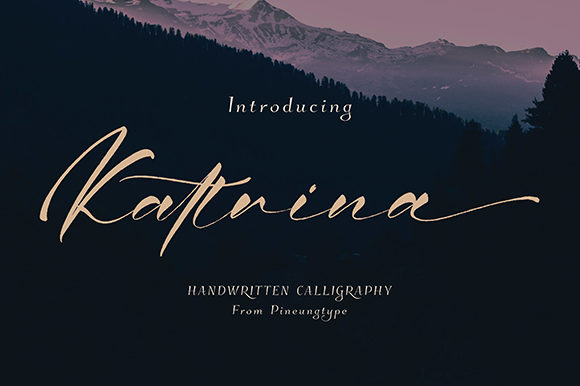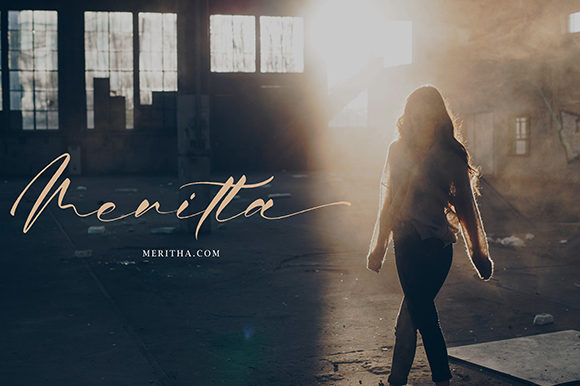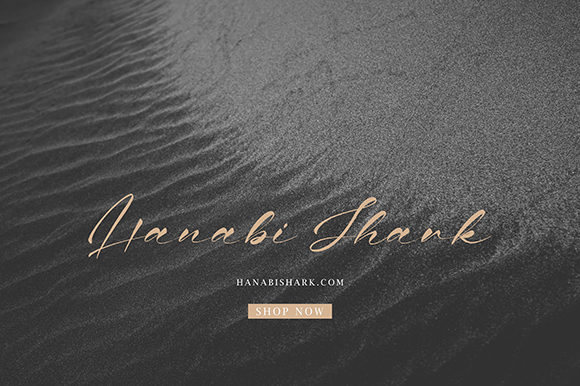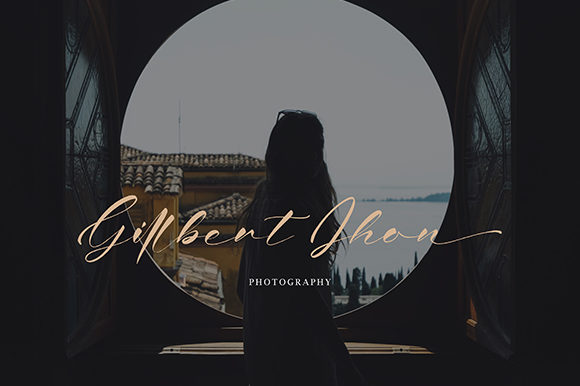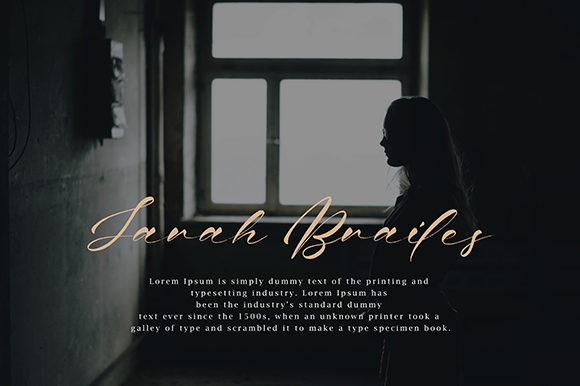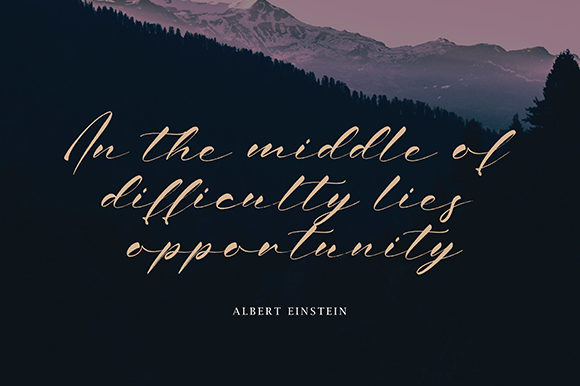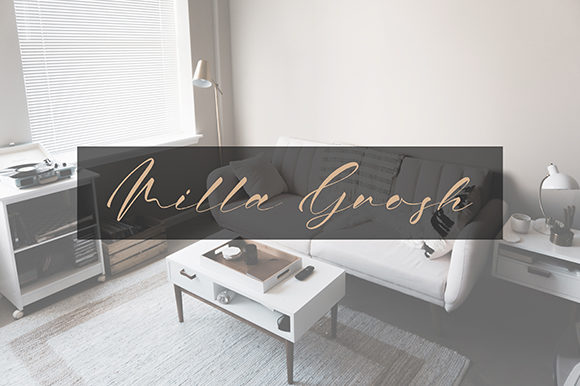
HomeScript FontsKattrina Font Script Fonts Kattrina Font FacebookXPinterestWhatsApp Kattrina Font Poster 2 Kattrina Font Poster 3 Kattrina Font Poster 4 Kattrina Font Poster 5 Kattrina Font Poster 6 Kattrina Font Poster 7 About Kattrina Font Kattrina is a stunning and modern handwritten font with a light feel. Get inspired by its cool feel! DOWNLOAD ON CREATIVE FABRICAThis font is sold and delivered by Creative Fabrica. Font Canyon may earn a commission if you buy through this link. People also explored Baileywick Gothic Wender Bremen Duo Font Good Font Noreman Font Daily Danissa Font Moutarde Break Rexinker Font Chainprinter Martani 344 0 TagsKattrina Font Previous articleBennedik FontNext articleFirst Teacher Font LEAVE A REPLY Cancel reply Comment: Please enter your comment! Name:* Please enter your name here Email:* You have entered an incorrect email address! Please enter your email address here Website: Save my name, email, and website in this browser for the next time I comment. Personal Use Free Bukhari Script Personal Use Free Read more about this font Eva Personal Use Free Read more about this font Broodfath Personal Use Free Read more about this font Mellgatha Personal Use Free Read more about this font BLOG Free vs Paid Fonts: Why Investing in Premium Fonts Is Worth It Free vs Paid Fonts: Why Premium Fonts Are Worth It in 2025 The debate of free vs paid fonts continues in the design world. While... Top 10 Handwritten Fonts That Elevate Your Designs Free Fonts Risk: Why Free Fonts Can Be Dangerous for Designers Best Fonts for YouTube Videos: Make Your Thumbnails Stand Out